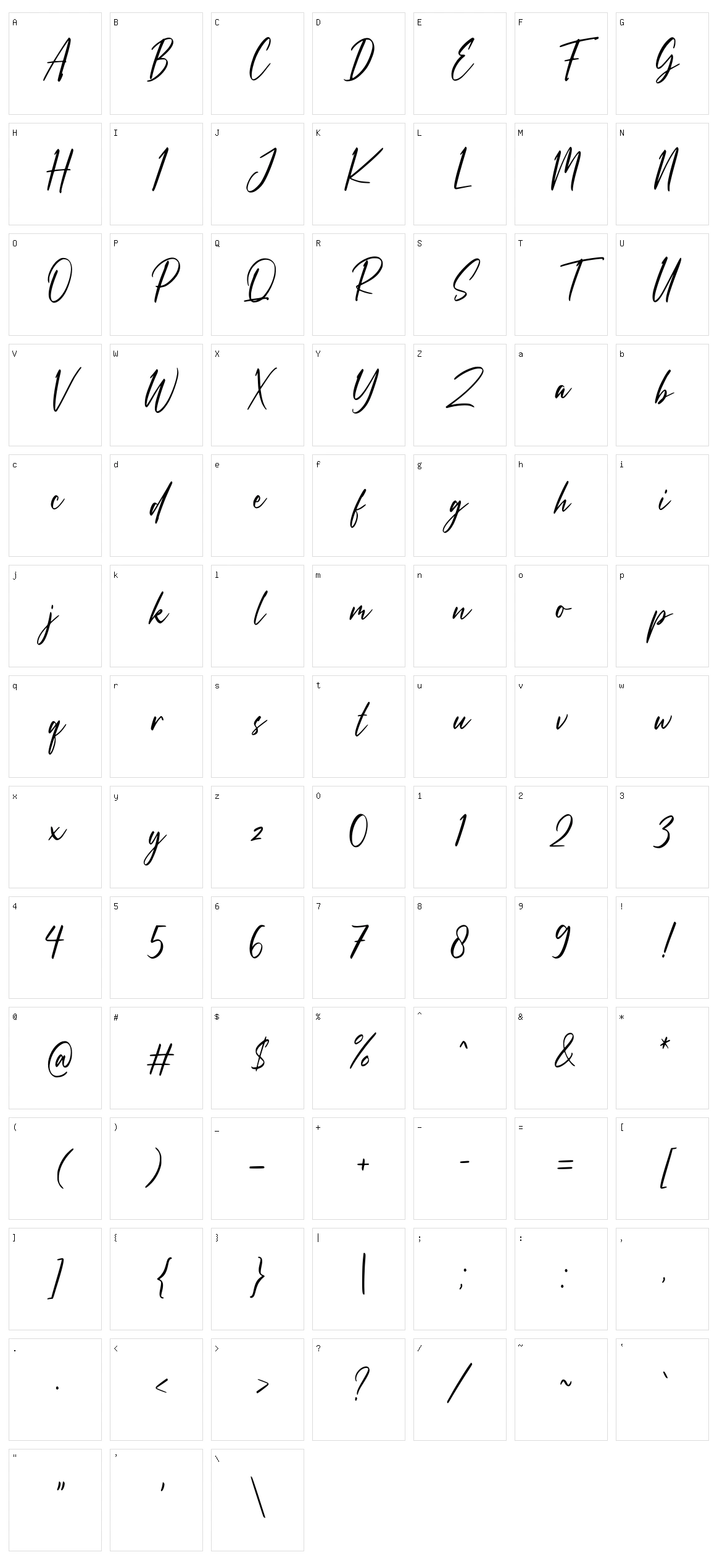
The free font Dandelion Fall is carefully designed by Graphue, showcasing a thoughtful balance of creativity and usability and falls under the Script font style. When you download the ZIP file, it contains only 66.05 KB of font files, making it lightweight and quick to download. Please review the license details below to understand permitted usage and distribution rights. If license information is not available, we recommend using this font for personal projects only or contacting the author directly for commercial usage permissions.